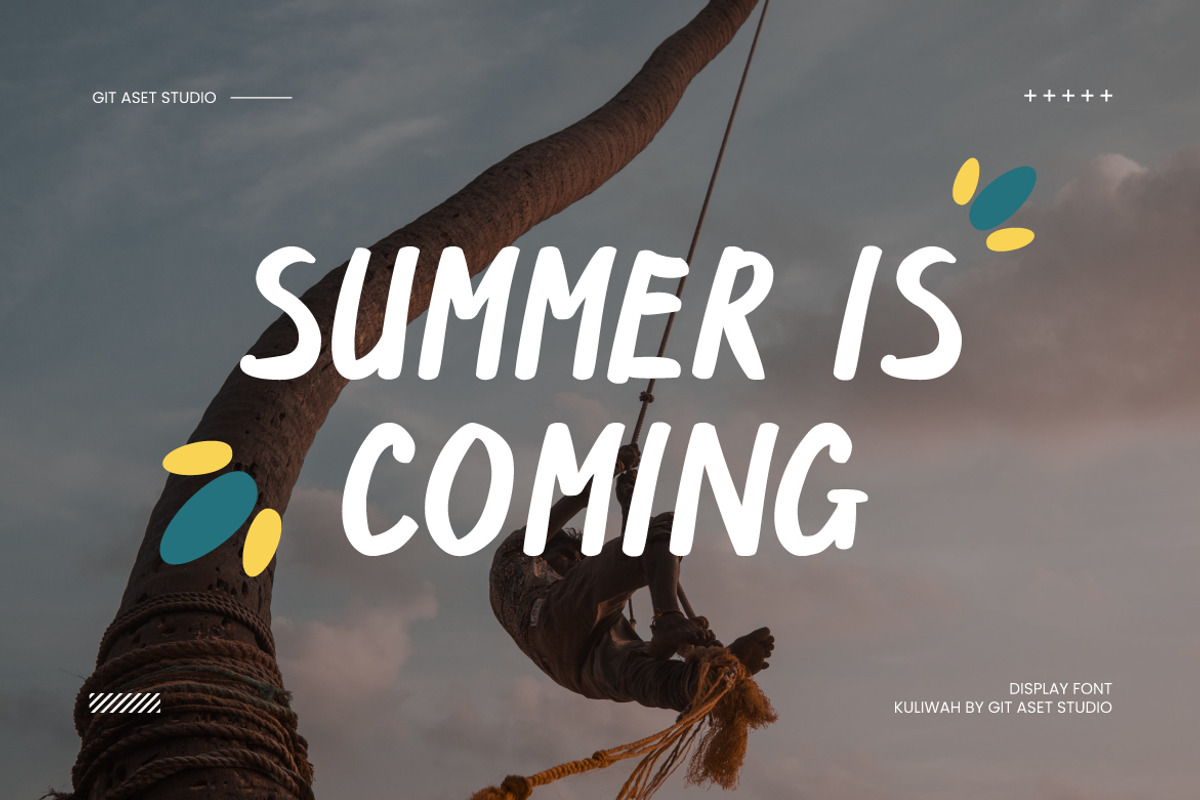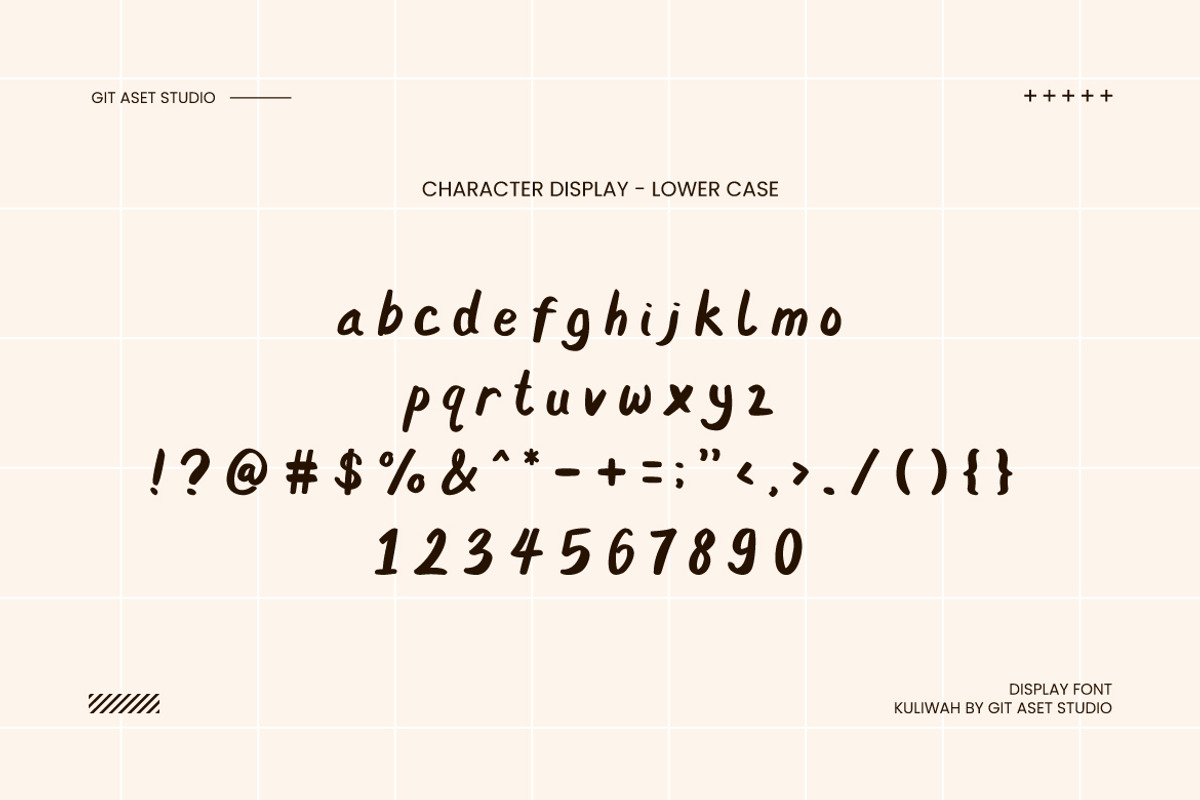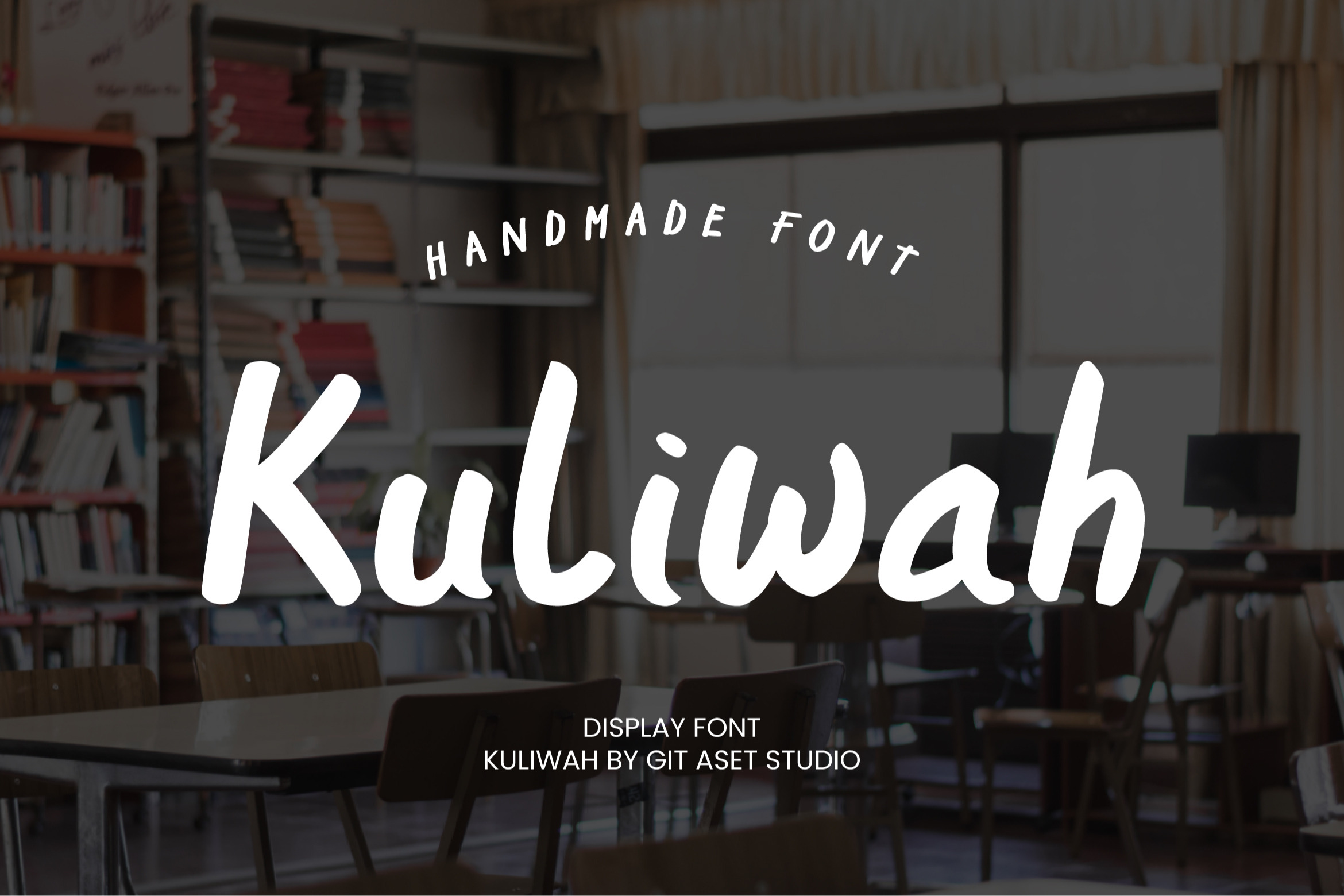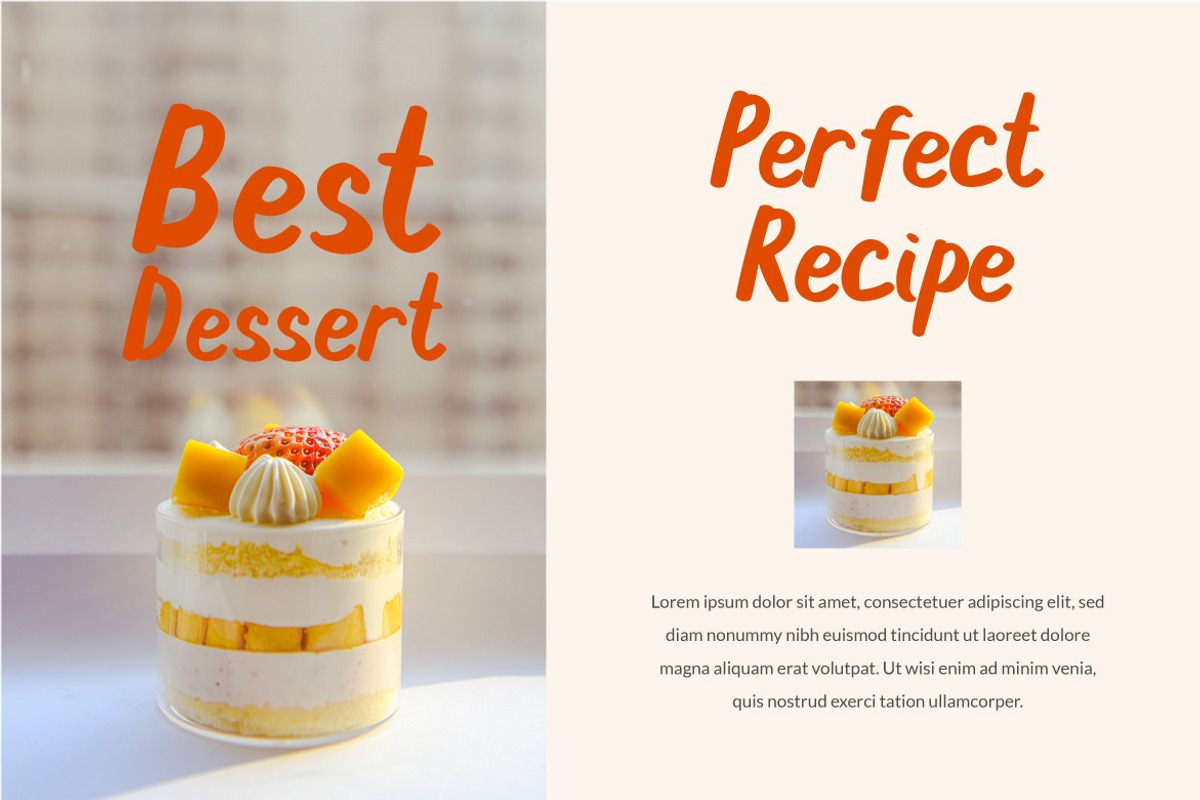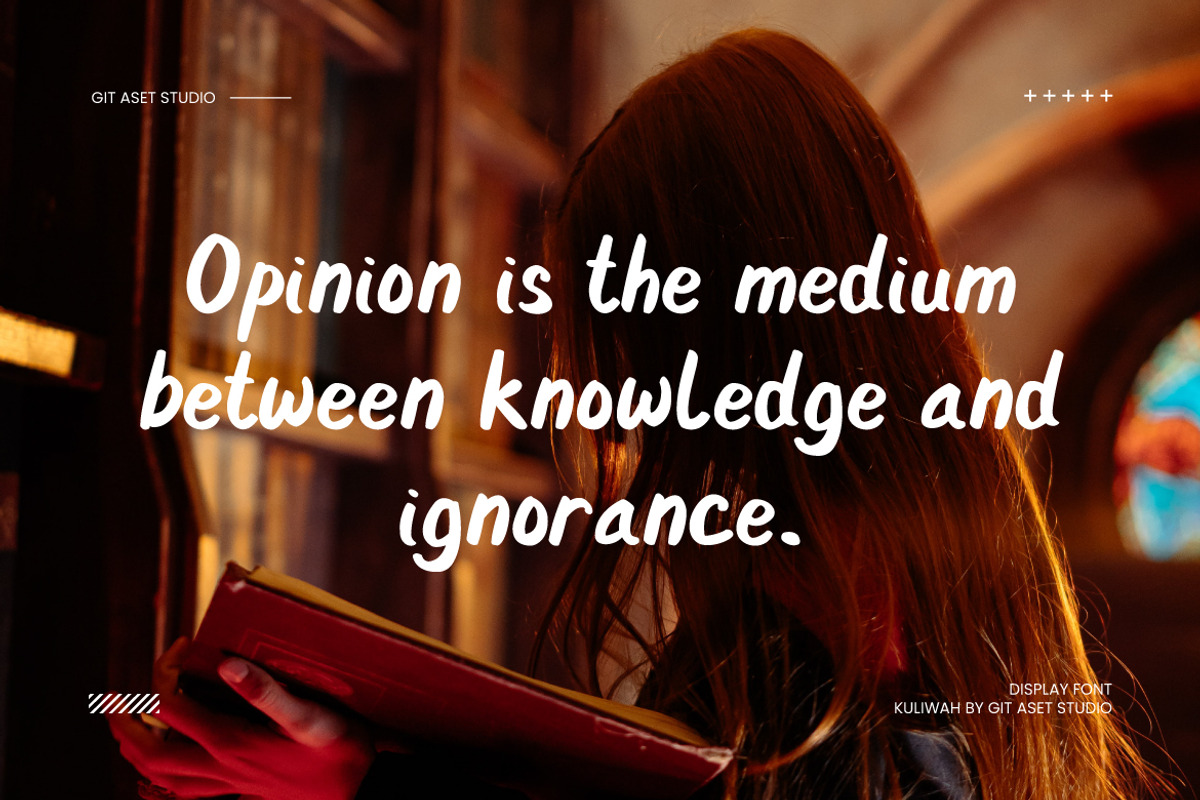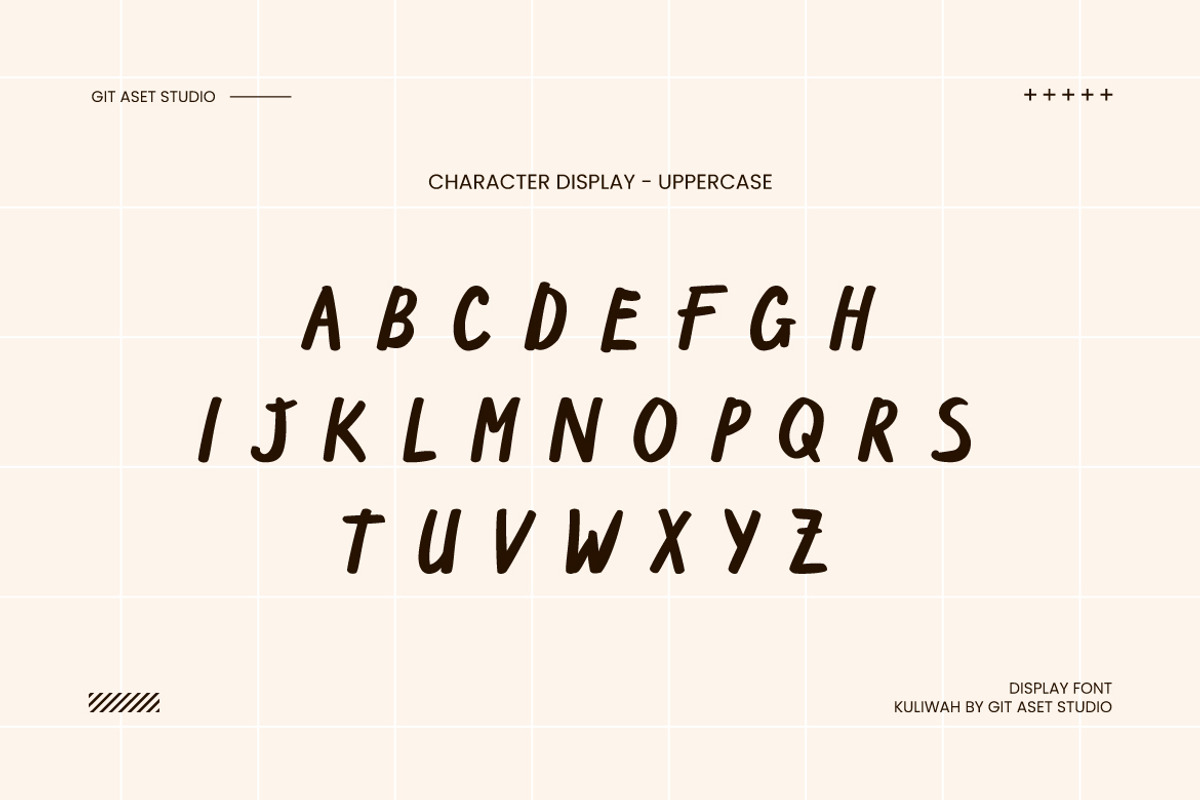
Kuliwah - Display Brush Font
This display brush font is a unique and captivating design asset that can add a touch of artistic flair to your projects. With its distinctive brush strokes and eye-catching style, this font is perfect for creating visually striking designs.
Although this font doesn't include ligatures and alternate characters, its strong brush strokes and bold letterforms make it perfect for headlines, logos, posters, and other display purposes.
Whether you're working on a contemporary poster design, a branding project, or a creative social media campaign, this font can be a great addition to your toolkit.